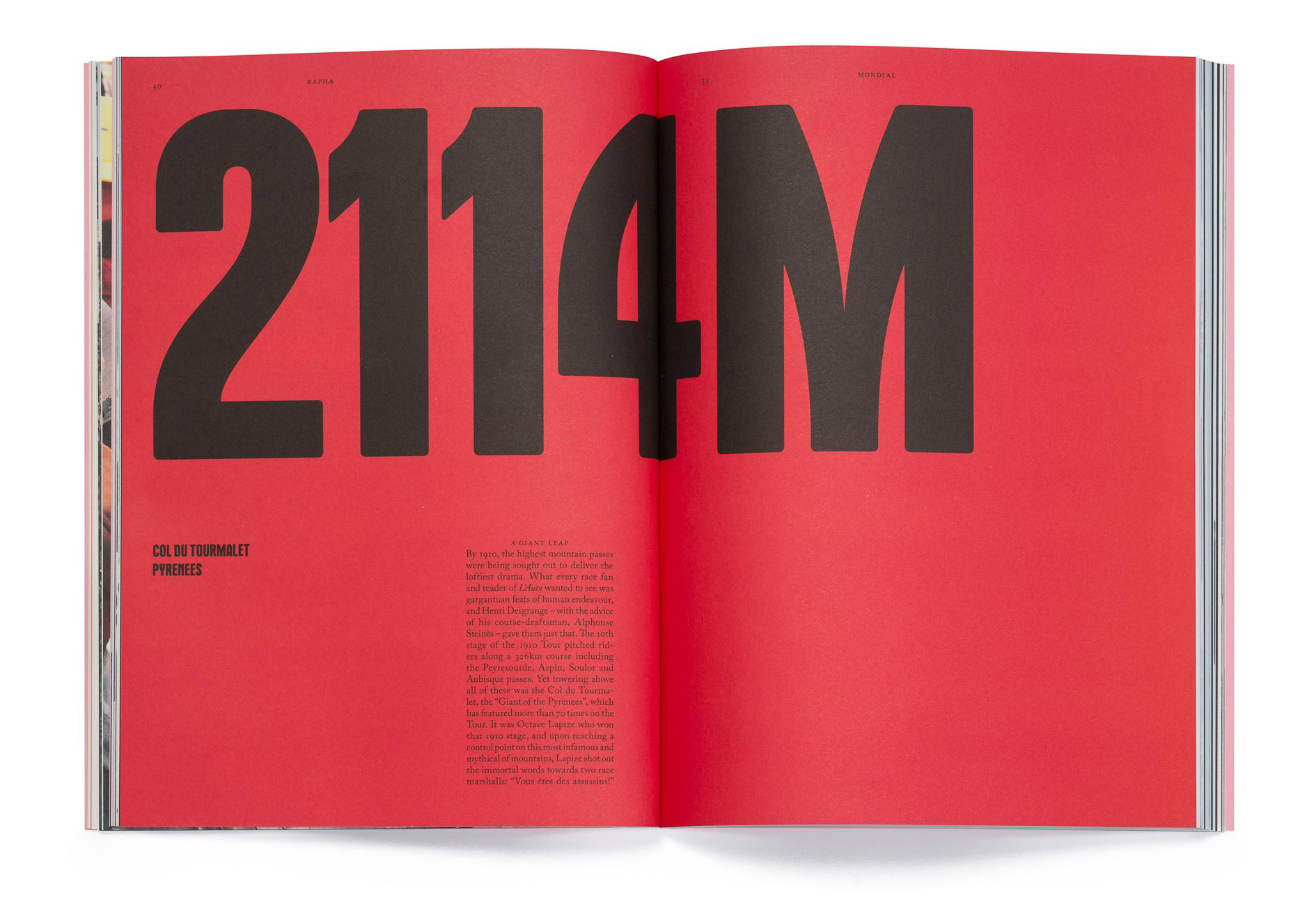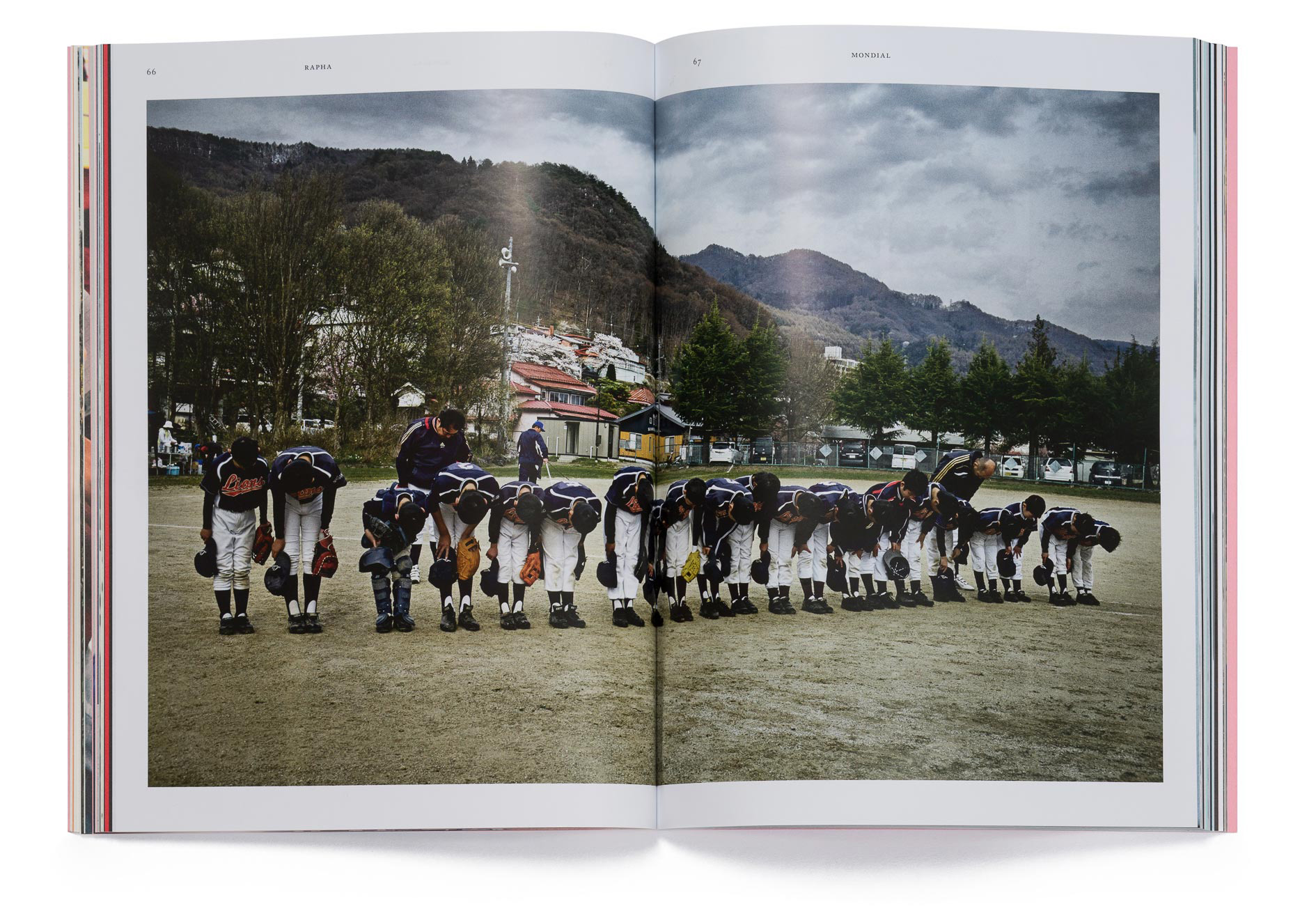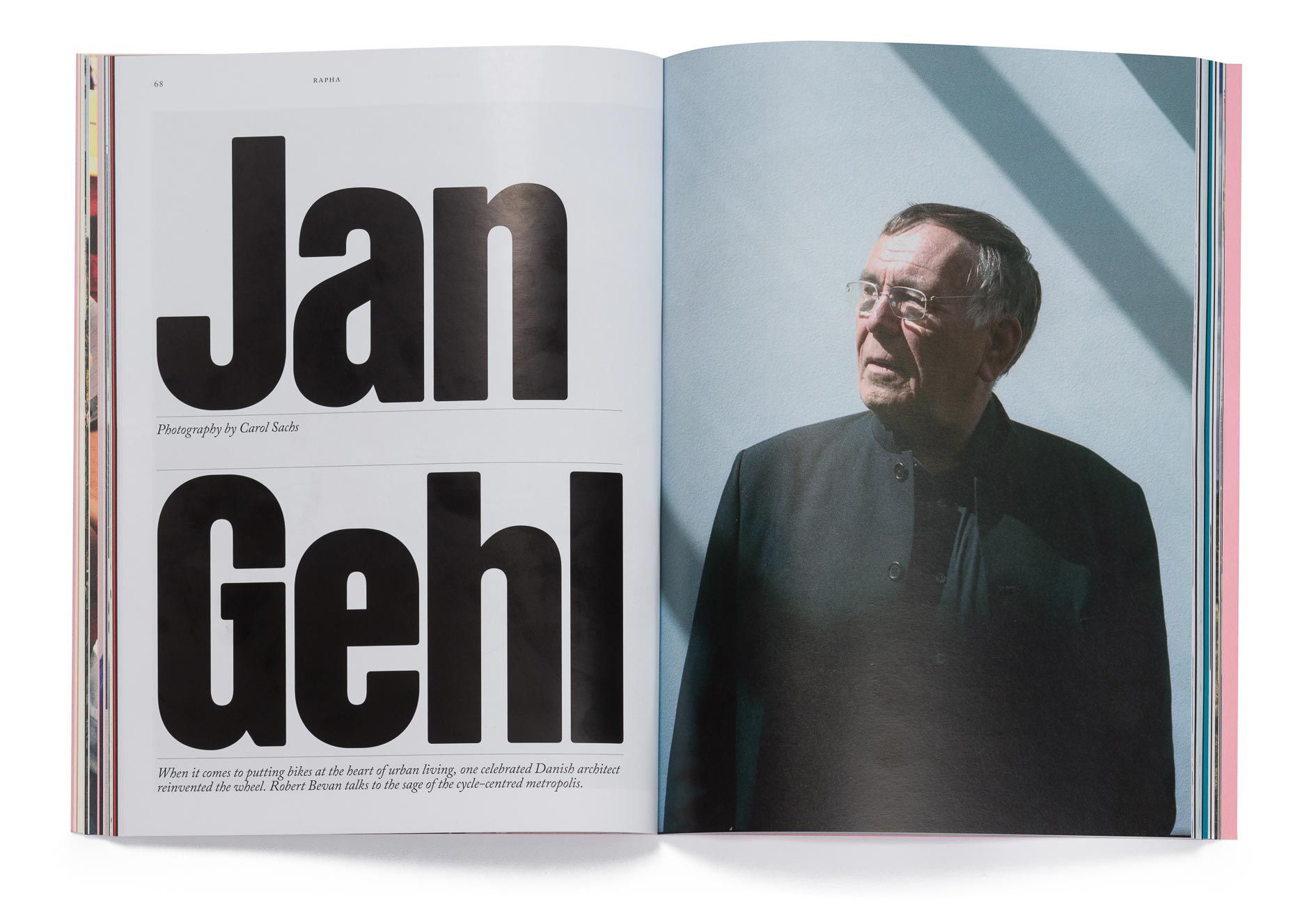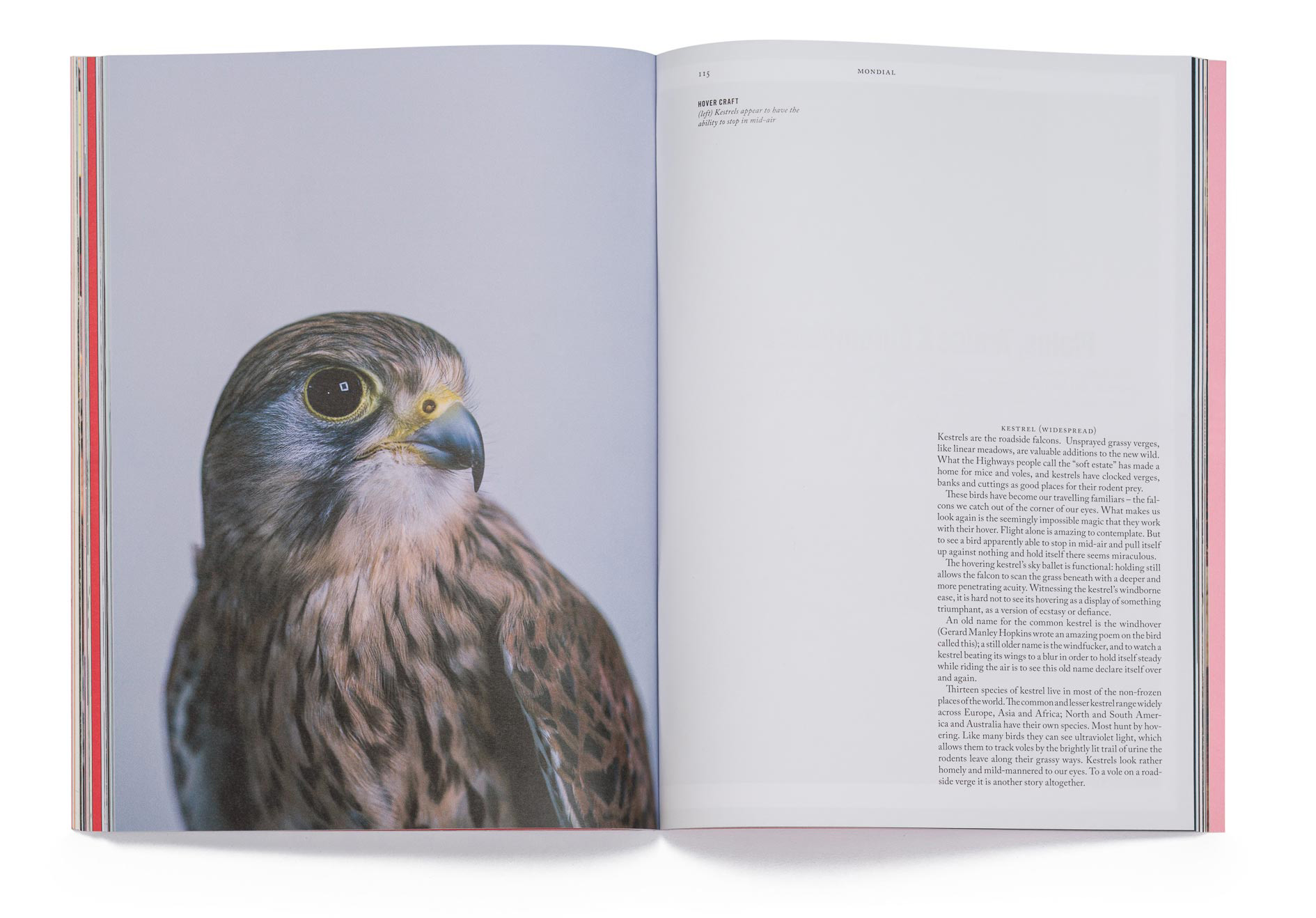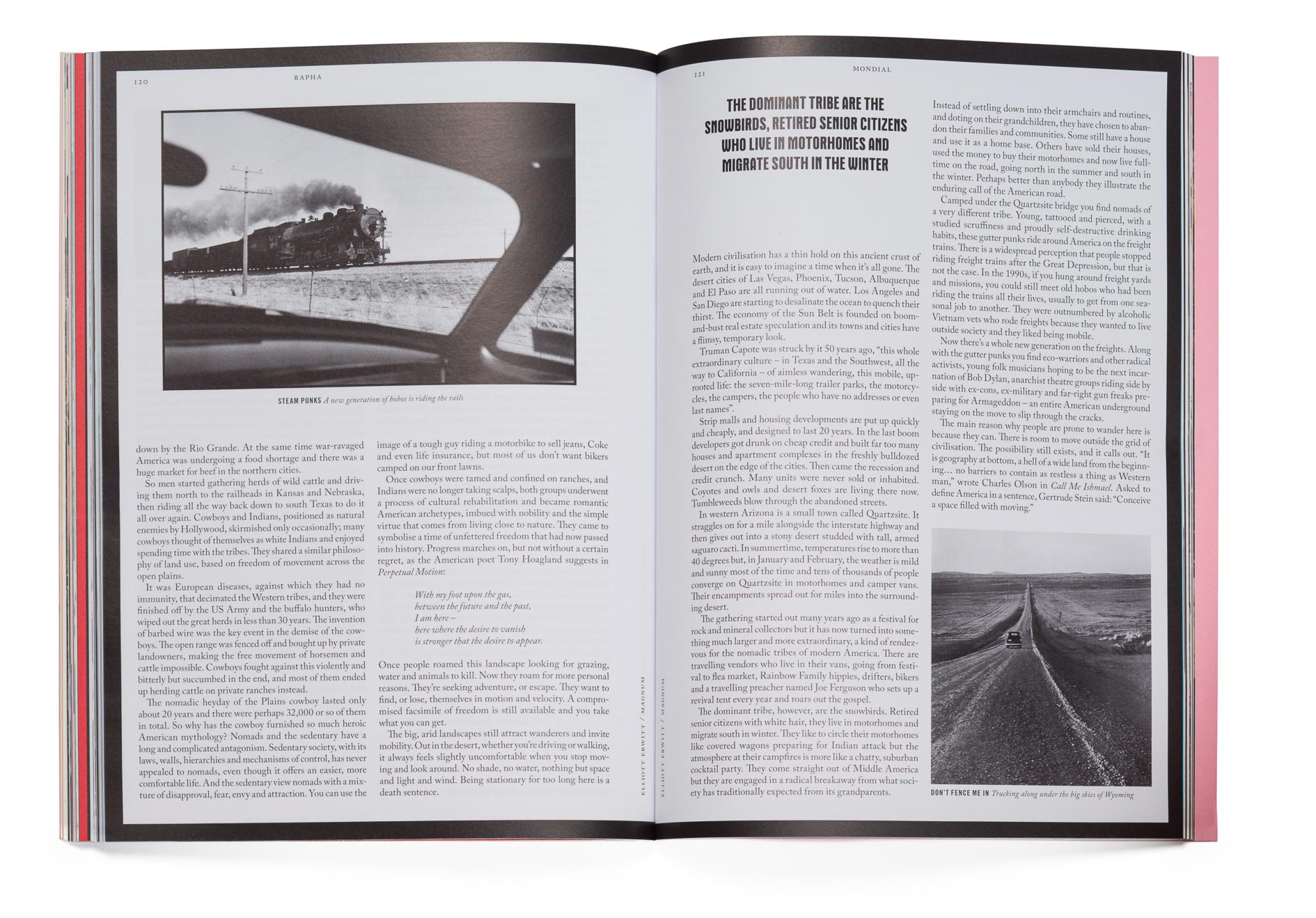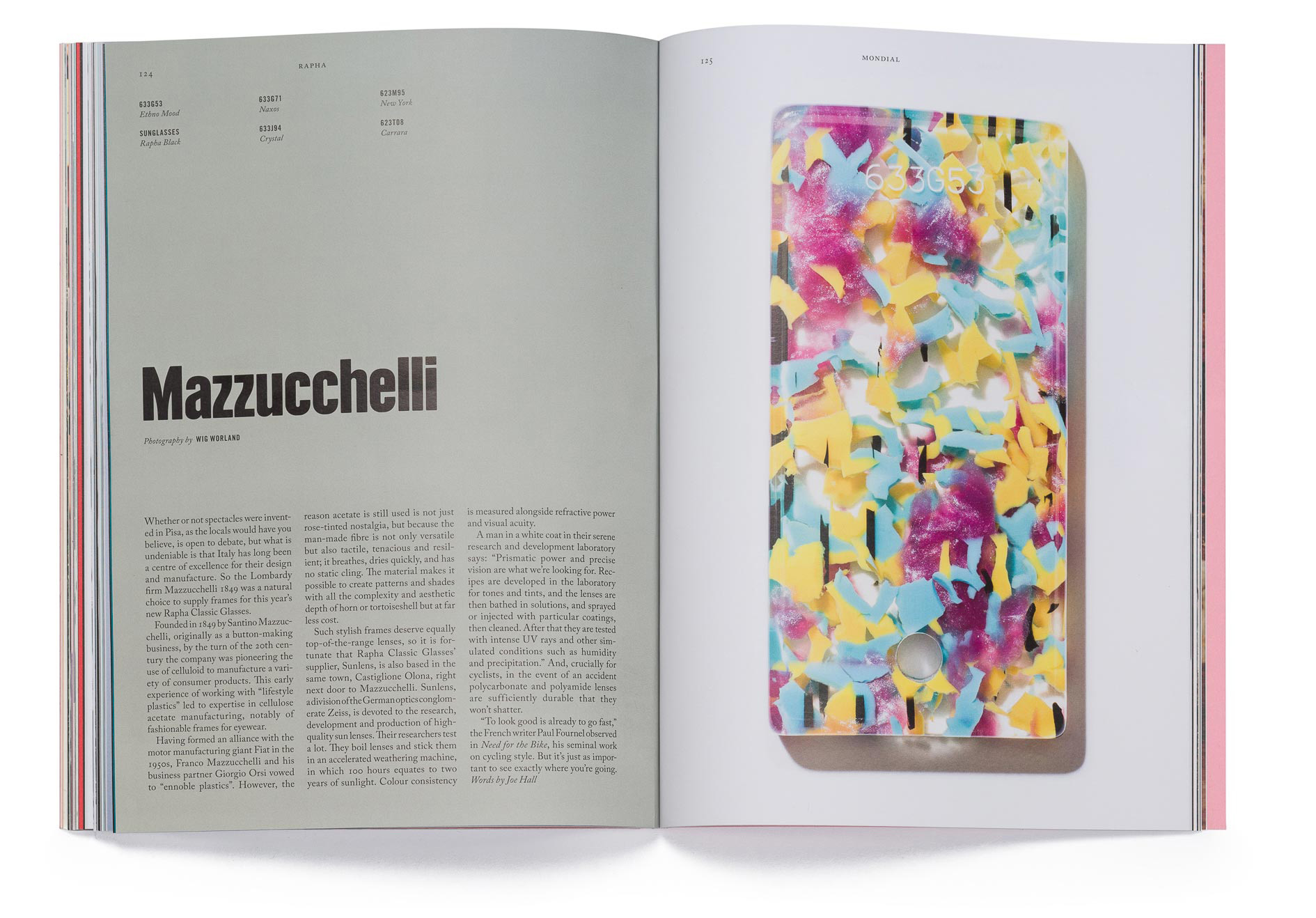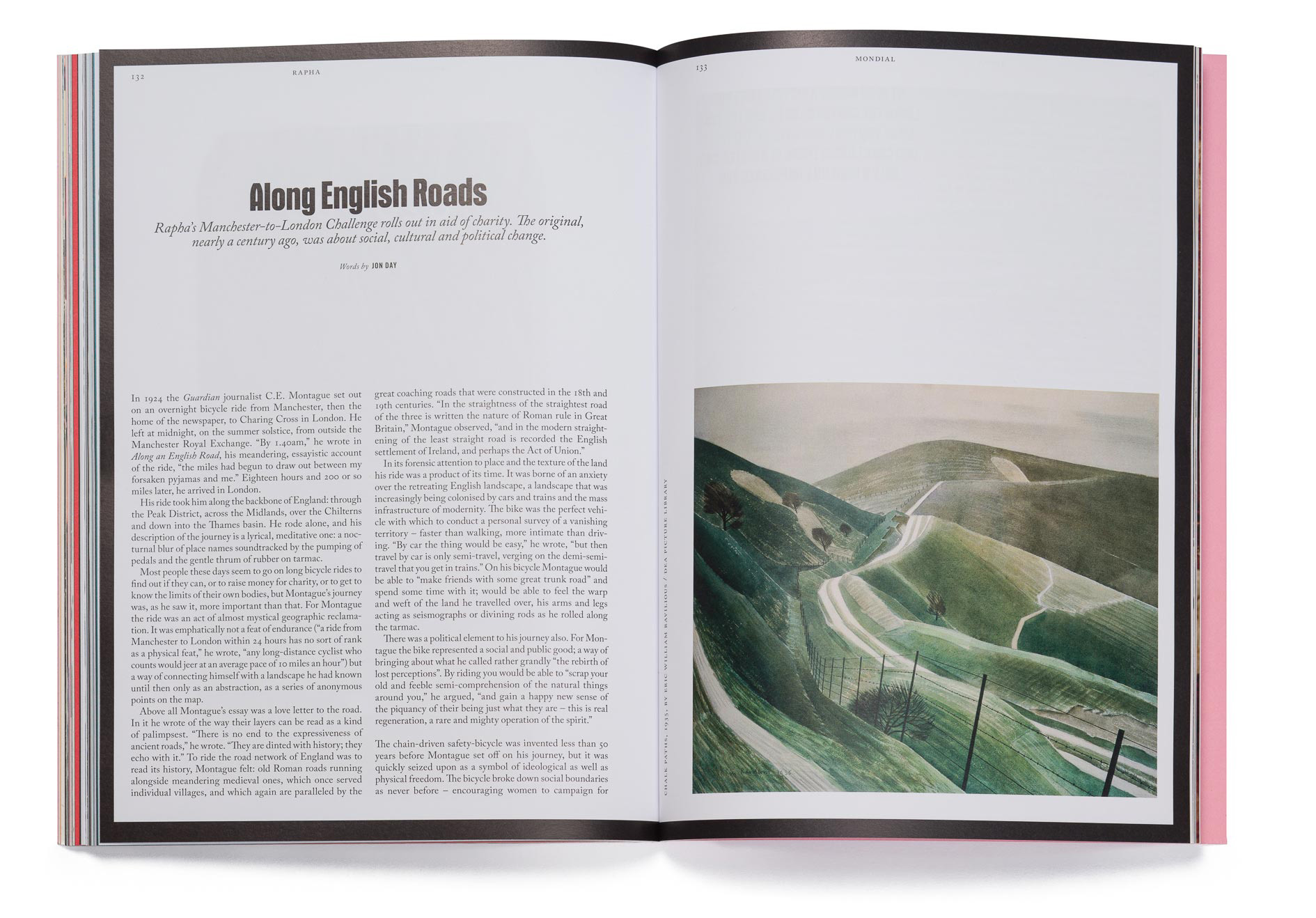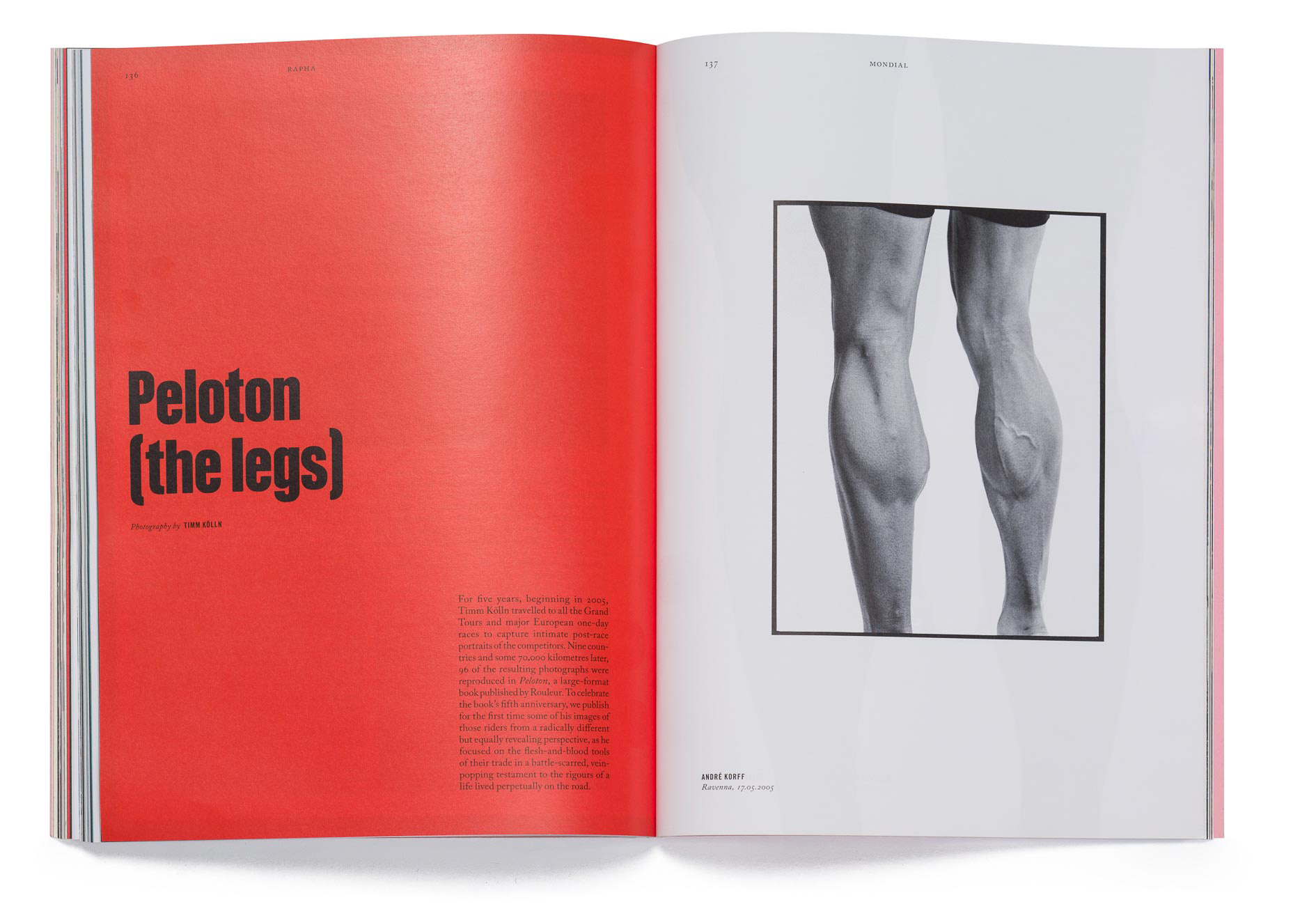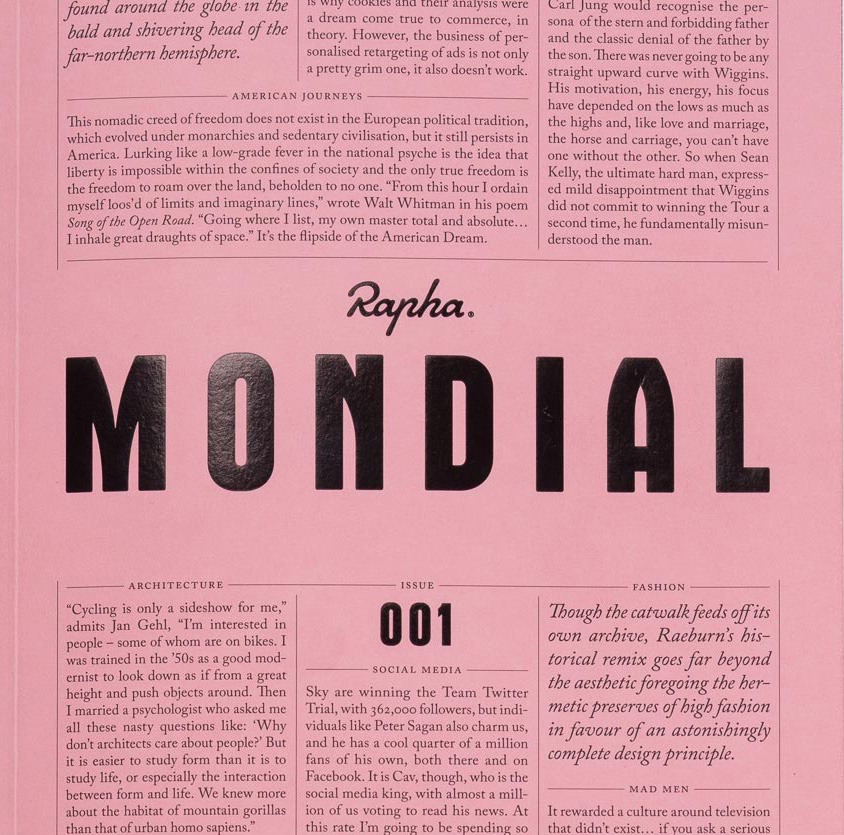
Rapha’s text-loving publication is gearing up our aesthetics
Even though digital media has gone through turbulent times in the past few years, it is print that has more often been considered the endangered species of publishing. That is not the case for Mondial. Rapha’s new bi-annual magazine Mondial that was launched on July 17 and has anyone who is into a text-heavy project raving about. Containing long form writing, photography, and in-depth reportage all connected to cycling, Mondial is Rapha’s latest venture, bringing a cycling viewpoint to wider cultural subjects and broadens the sport’s reference points. “Our ambition for Mondial is to broaden the horizons of what road cycling is and what the sport can be. We have structured the magazine to take you on a journey, from familiar and comfortable ‘foothills’ to more challenging climbs and cols where the views are even more rewarding” writes Simon Mottram, the founder and chief executive of Rapha, in the foreword to issue one of the magazine.
Known for its refined and classic aesthetic, lifestyle bicycle brand Rapha has extended its sophisticated style to the magazine’s design. “One of the toughest extensions for any brand to manage is the development of editorial representations of its character and aesthetic” comments magCulture’s Jeremy Leslie. “That Mondial succeeds so well shouldn’t be a surprise; the Rapha brand has barely set a foot wrong since its launch 11 years ago” she added.
“Black text on pink paper is a direct homage to the front cover of the Gazzetta Della Sport, the Italian newspaper that was responsible for the creation of the Giro d’Italia in 1909”
“Mondial provides a chance for us to solidify the aesthetic of our brand in the minds of our customers rather than reinvent it. Inside, the typographic treatments are tweaked in-house styles, which have been refined for the specific editorial requirements of the magazine” says the brand’s art director Jack Saunders. “Black text on pink paper is a direct homage to the front cover of the Gazzetta Della Sport, the Italian newspaper that was responsible for the creation of the Giro d’Italia in 1909” he commented. Being a members’ magazine that’s sold online and shipped directly to Rapha's customers, Mondial had the chance to break away from conventional editorial guidelines. Throughout the 162 pages of mixed paper stocks typography rules. Mondial’s new bespoke typeface has direct references to the letterforms found in the Gazzetta circa ’70s.
“There are many magazines that influenced the design of Mondial. Titles of note such as Twen, and more recently, those designed by Matt Willey, are great examples of editorial design that have had varying degrees of influence over magazines in general and thus Mondial” says the art director of this slick designed, text-heavy bi-annual project that is a follow up to Rouleur magazine -after all Rapha was the original backer of the publication, which was founded in 2006 and was sold in 2012).
Following its tenth year anniversary, Rapha is raising the bar with an inaugural issue that sees the company moving in exciting new directions. “Anyone addicted to road cycling knows the sport is about much more than fitness and gear. For road riders, the sport lies at the heart of their identity and is the lens through which they view the world. The past decade has seen an explosion in cycling media, both online and in print. Rapha believes it is time for the sport to show renewed ambition” says the company. Obviously, typography is a wheel of change.